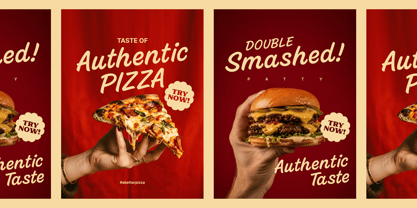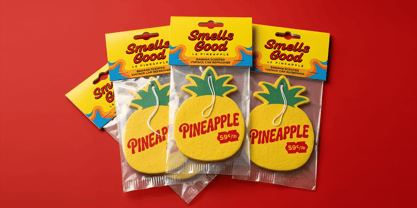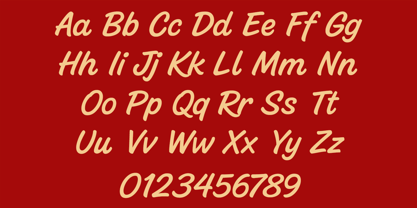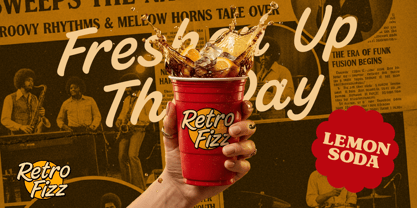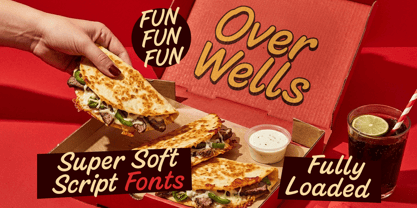
Over Wells
Die Schriftfamilie Over Wells wurde von Abdilah entworfen und von Konstantine Studio veröffentlicht. Over Wells enthält 1 Stile. Mehr über diese Familie
Meet Over Wells—a deliciously casual script font designed with a fluid, natural handwriting flow. Engineered with a distinct skinny, monoline "noodle" body shape and perfectly rounded character terminals, Over Wells strikes the ideal balance between playful energy and clean, professional typography.
Whether you are designing eye-catching food and beverage visuals, crafting a bold logo for an artisanal brand, mapping out pop-culture inspired visuals, or styling vibrant menus, this typeface is fully loaded to deliver maximum impact. Its organic rhythm perfectly replicates authentic hand-lettering, giving your digital assets an immediate injection of fun, warmth, and retro-modern charm.
From fast-casual pizza boxes and food trucks to high-engagement content overlays. Its precise geometry ensures ultra-clean vector rendering — making it effortless to scale, stretch, outline, or stack.